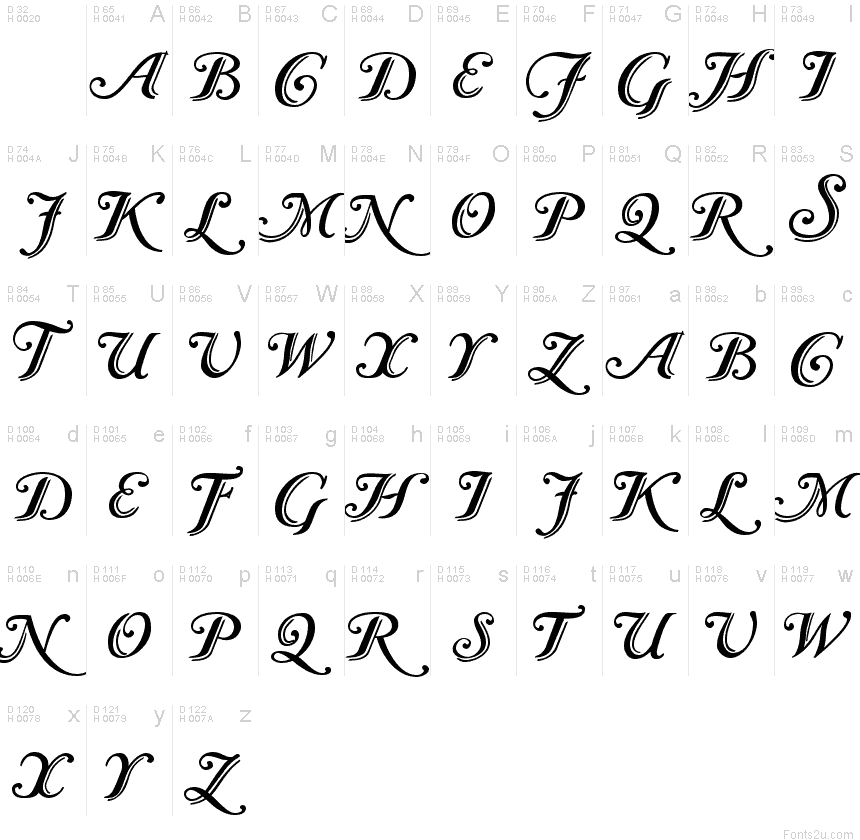
Caslon Calligraphic Initials
Caslon Calligraphic Initials font by Caslon Initials is a free calligraphic decorative typeface. Each letter unfurls with sweeping, ribbon-like curves and crisp inky strokes, like something lifted from an antique title page. The generous swashes and looping forms feel ceremonial and handcrafted, made to be seen up close.
Using Caslon Calligraphic Initials, you can set ornate drop caps, wedding monograms, invitations, certificates, book covers, and luxury packaging that need a single letter to carry the mood. This free font shines at larger sizes; pair its flowing initials with a quiet serif or sans for supporting text.